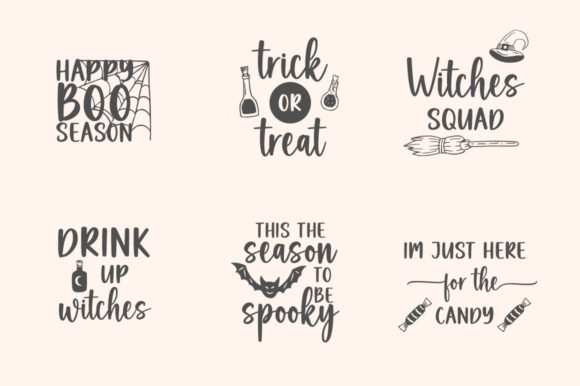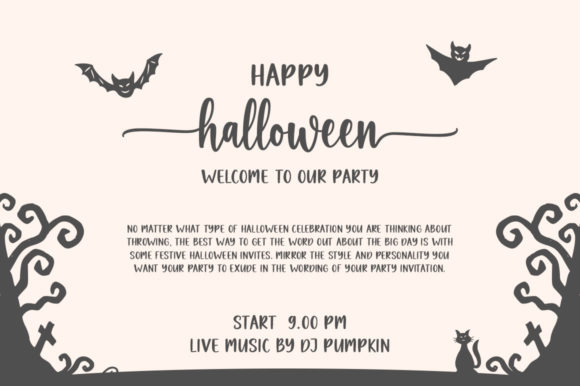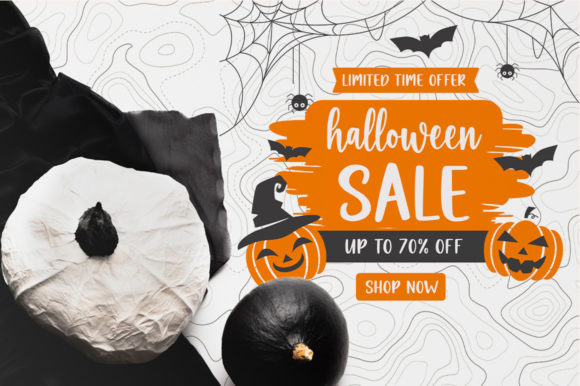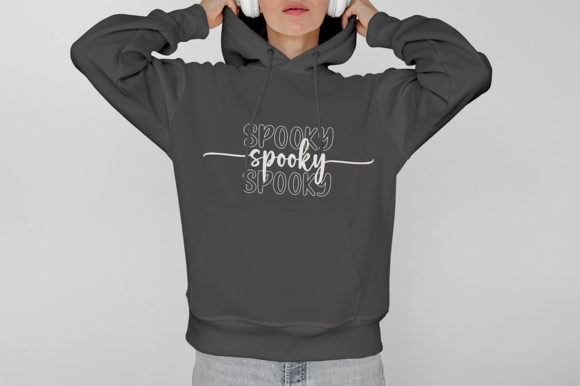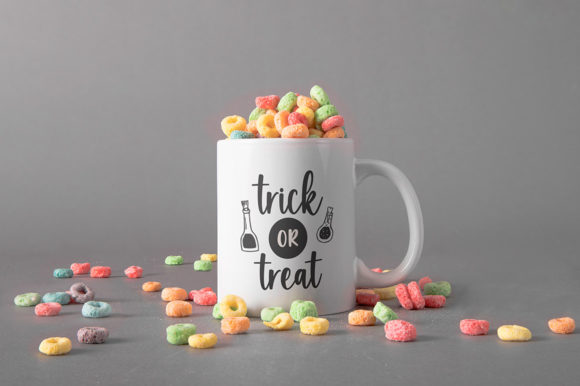
Happy Halloween Font: Add a Chic and Cheery Touch to Your Crafts
Are you looking for a font that can add a spooky yet cheerful vibe to your Halloween crafts? Look no further than the Happy Halloween Font! This delightful font consists of two perfectly complementary fonts that can be used together or separately to bring a touch of elegance and whimsy to your designs.
What Makes Happy Halloween Font Special?
The Happy Halloween Font is designed to make your crafting process a breeze. One of its standout features is that it consists of two fonts that are carefully crafted to complement each other perfectly. This means you have the flexibility to use them together for a more dramatic effect or separately for a more subtle look.
- Customize your designs with a variety of special characters and ornaments
The Happy Halloween Font is ideal for designers and crafters who want to add a chic and cheery touch to their Halloween projects. Whether you’re creating:
- Halloween-themed party invitations
- Spooky yet stylish greeting cards
- Eerie and elegant crafts, such as decorations or gift tags
This font is sure to become a go-to choice. Its versatility and charm make it perfect for a wide range of creative projects.
Why Choose Happy Halloween Font?
There are many reasons why the Happy Halloween Font stands out from other fonts. Here are just a few:
- Unique and eye-catching design: The Happy Halloween Font features a distinctive and captivating design that’s sure to grab attention.
- Flexible and versatile: Use the fonts together or separately to achieve the desired effect.
Tips for Using Happy Halloween Font
To get the most out of the Happy Halloween Font, here are some tips:
- Experiment with different sizes and colors: Play around with different font sizes and colors to create a unique look.
- Combine with other fonts: Try pairing the Happy Halloween Font with other fonts to create a distinctive and eye-catching design.